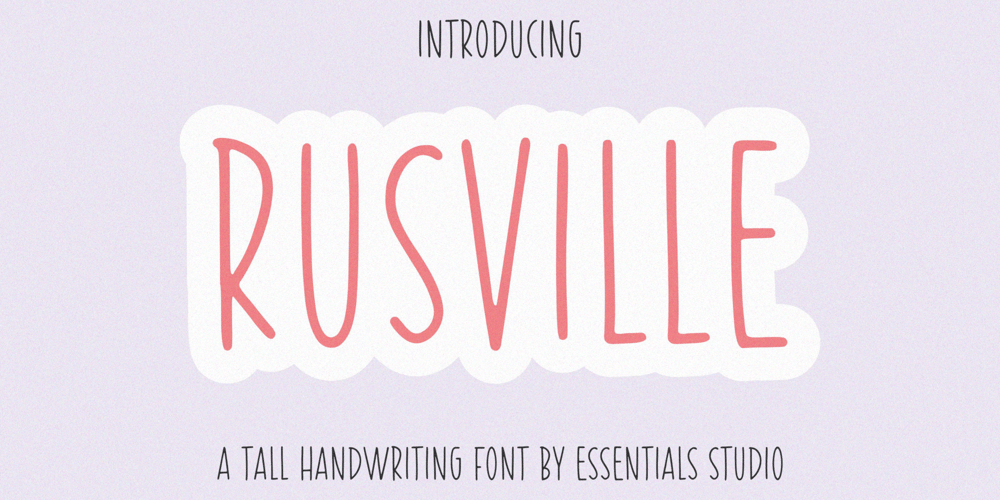
Rusville Font Family was designed by Annas Rifky Anhar and published by Essentials Studio. Rusville contains 1 styles and family package options. Rusville is a fun and friendly handwritten font. Its casual, tall, and thin letters are suitable for a wide spectrum of applications that require delicate typography.